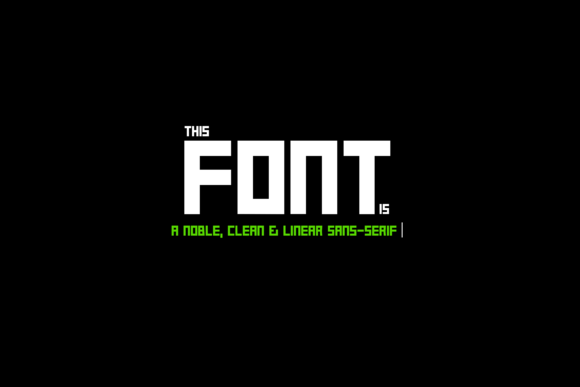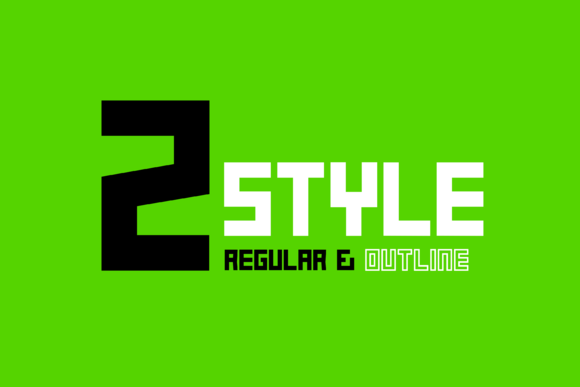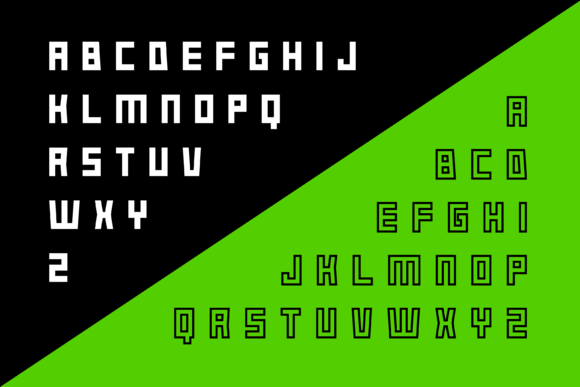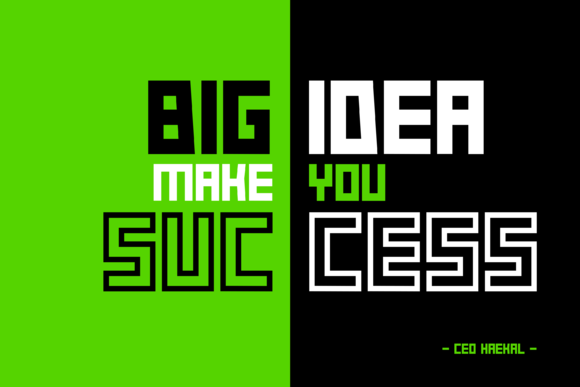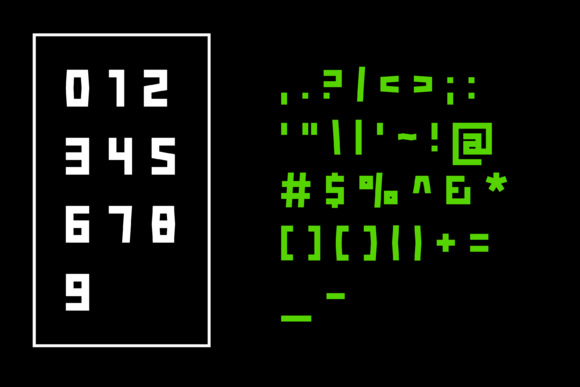
The Box Font: A Clean and Fresh Sans Serif Delight
I’ll never forget the time I was working on a project for a client who needed a modern, minimalist look. I spent hours scrolling through font libraries, but nothing seemed quite right. That was until I stumbled upon the Box Font. Its clean and fresh sans serif design instantly caught my eye, and I knew I had found the perfect fit. In this article, I’ll share my experience with this exclusive font, its features, and how to make the most of it in your designs.
• ✨ **Clean and fresh design**: The Box Font has a sleek, modern look that’s perfect for a wide range of projects, from branding to digital media.
• ✅ **Highly legible**: The font’s clear and simple design makes it easy to read, even at small sizes.
• 💡 **Versatile**: The Box Font comes in various weights, making it suitable for both headings and body text.
While the Box Font is an excellent choice, there are a few things to keep in mind:
• 🤔 **Limited character set**: The font may not have an extensive range of characters or language support, so it’s essential to check compatibility before use.
• ⚠️ **Not ideal for body text**: While legible, the font’s clean design can sometimes make it feel a bit too light for lengthy body text.
3. Experiment with OpenType features, such as ligatures and stylistic alternates, to add visual interest to your text.
4. Take advantage of OpenType features, such as glyphs and stylistic alternates, to add depth and variety to your text.
The Designer Inspiration Behind Box Font
The Box Font was designed with the goal of creating a clean, modern sans serif font that’s both versatile and highly legible. The designer drew inspiration from a range of sources, including minimalist design, modern architecture, and digital media.
What is the Box Font suitable for? The Box Font is suitable for a wide range of projects, including branding, digital media, web design, and print materials.